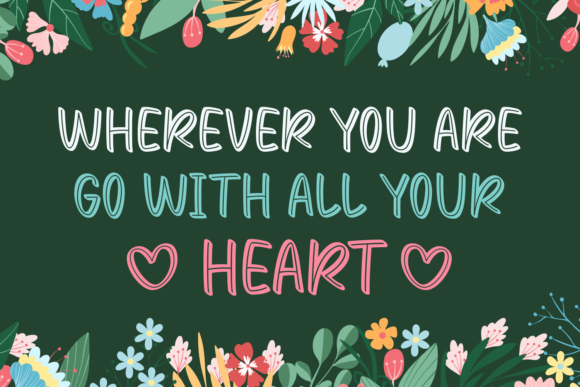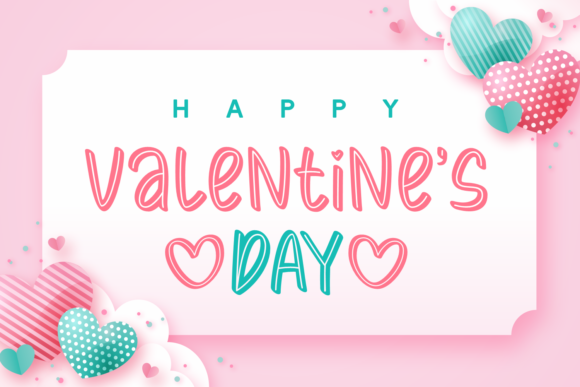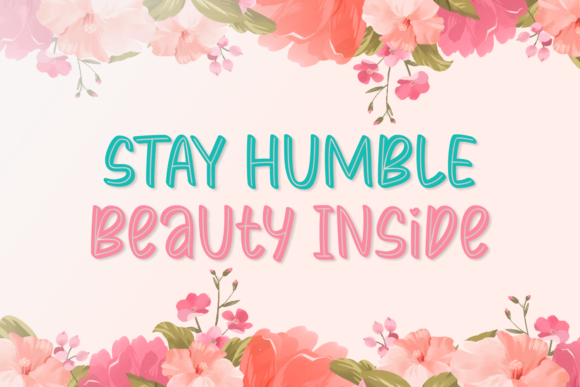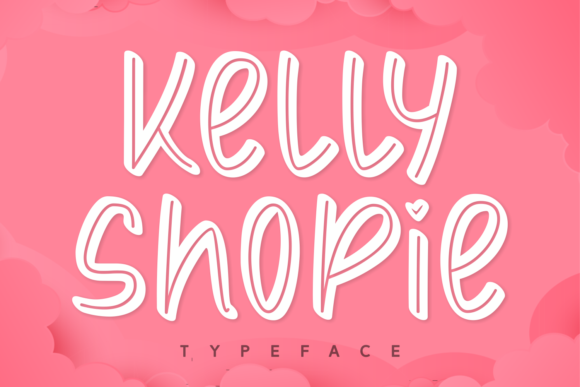
Introduction to Kelly Shopie Font
Kelly Shopie is a playful and friendly display font.
Whether you are using it for cartoon-related designs, children games, quotes, titles, brand names, book covers, posters, or just any creation that requires a touch of joy, this font is a great choice .